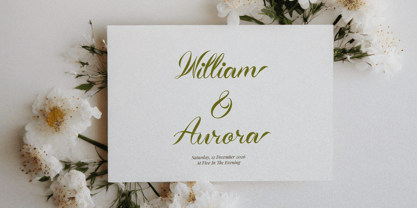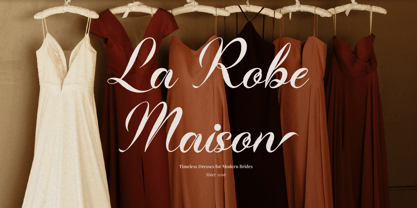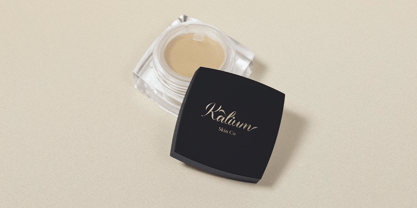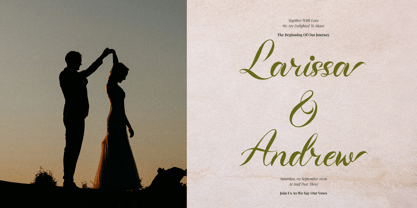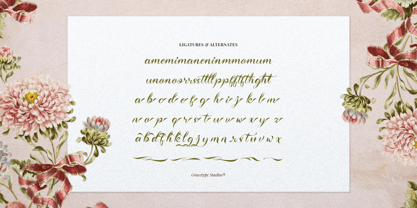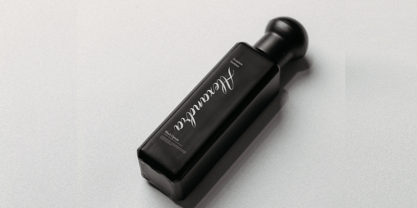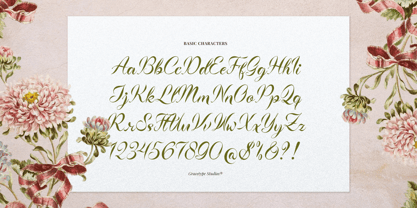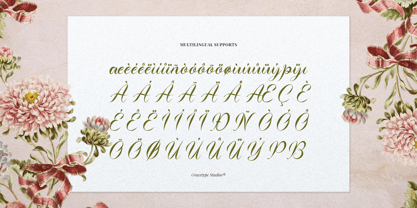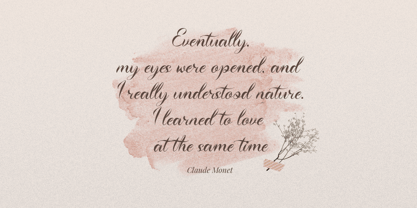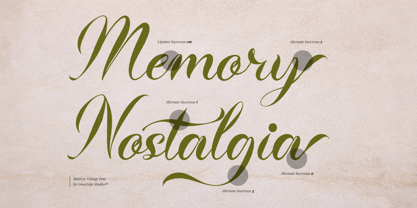
Maileya Vintage
by Tini Fitriani
The Maileya Vintage Font Family and published by Tini Fitriani. Maileya Vintage contains 2 styles and family package options. More about this family
Maileya Vintage | Elegant Script, from Gracetypestudio, suitable for any projects such as: logos, branding projects, homeware designs, product packaging, mugs, quotes, posters, shopping bags, t-shirts, book covers, name card, invitation cards, greeting cards, label, photography, watermark, special events, and all your other lovely projects that need a Script taste.